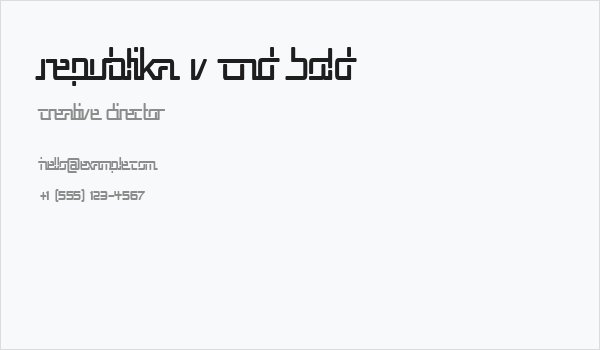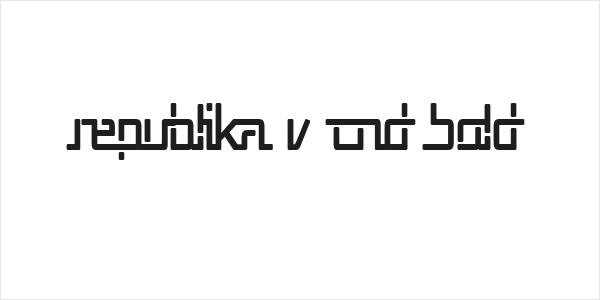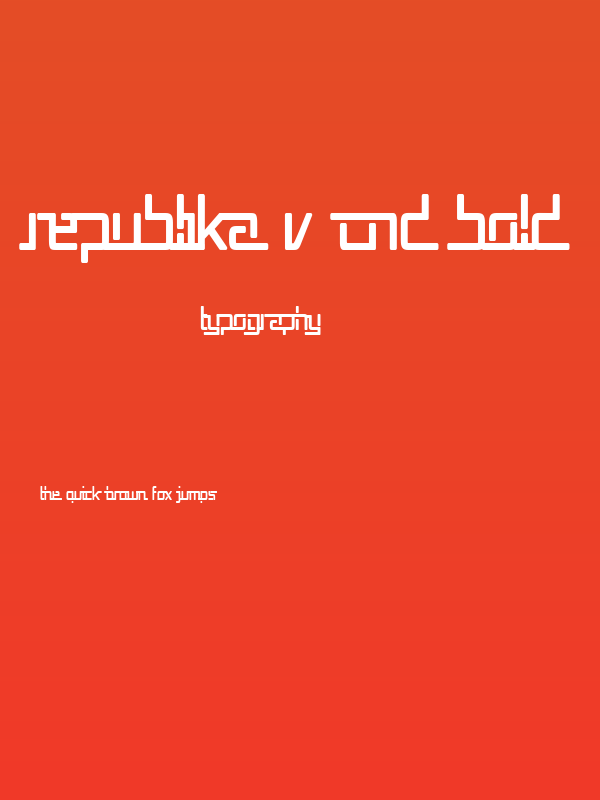
Republika V Cnd Bold Font
Republika V Cnd Bold Description
This font features a bold, geometric design with a futuristic aesthetic. The characters are constructed with thick, uniform strokes, creating a strong and impactful appearance. The design incorporates sharp angles and straight lines, giving it a modern and industrial feel. The uppercase and lowercase letters maintain a consistent style, with a distinctive blocky structure. Numbers and special characters are designed to match the boldness and geometric nature of the alphabet, ensuring a cohesive look across all elements.
Proposed ProjectsIdeal for technology branding, sci-fi themed projects, video game interfaces, and modern poster designs.